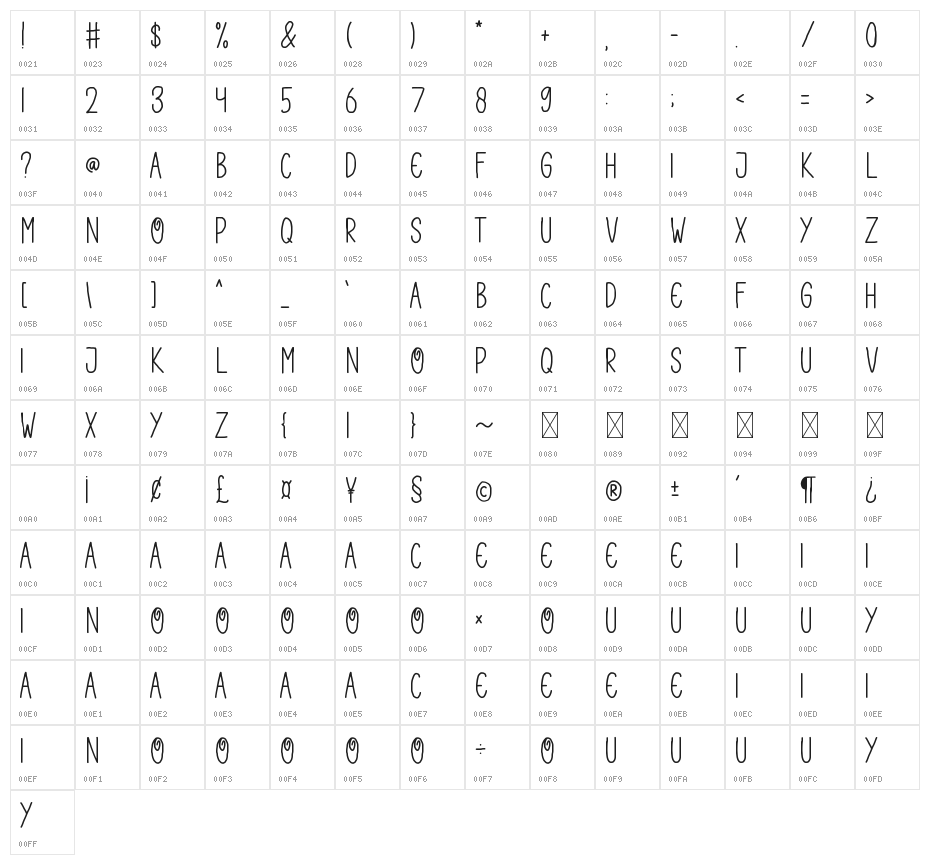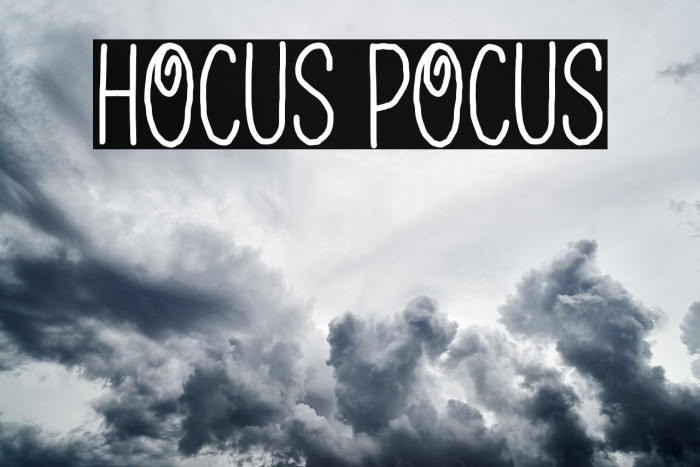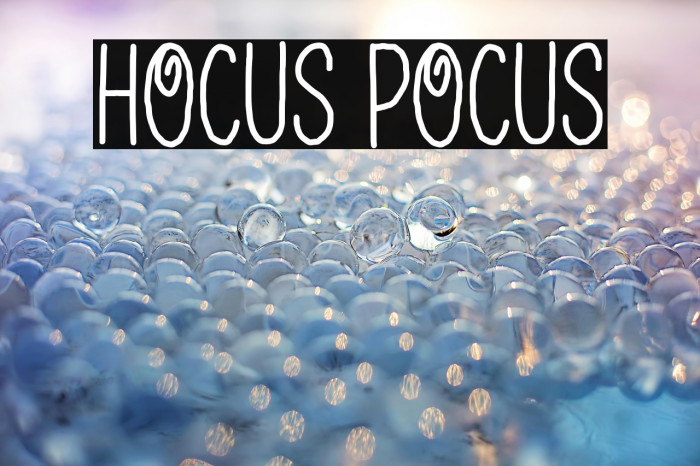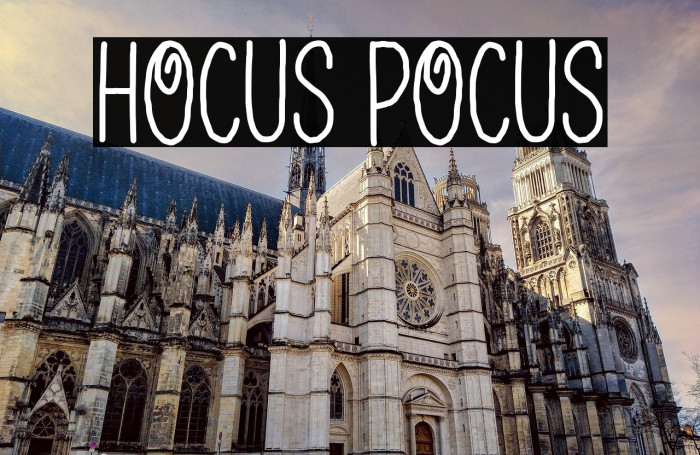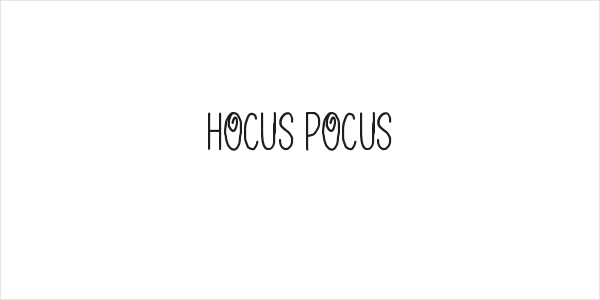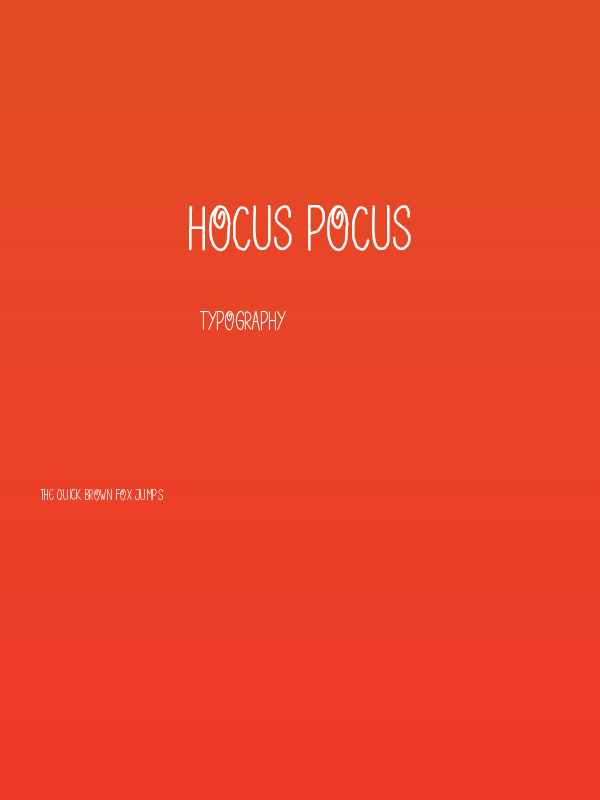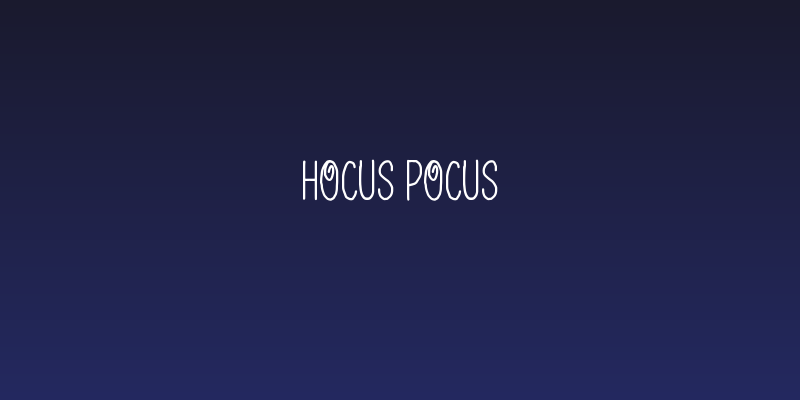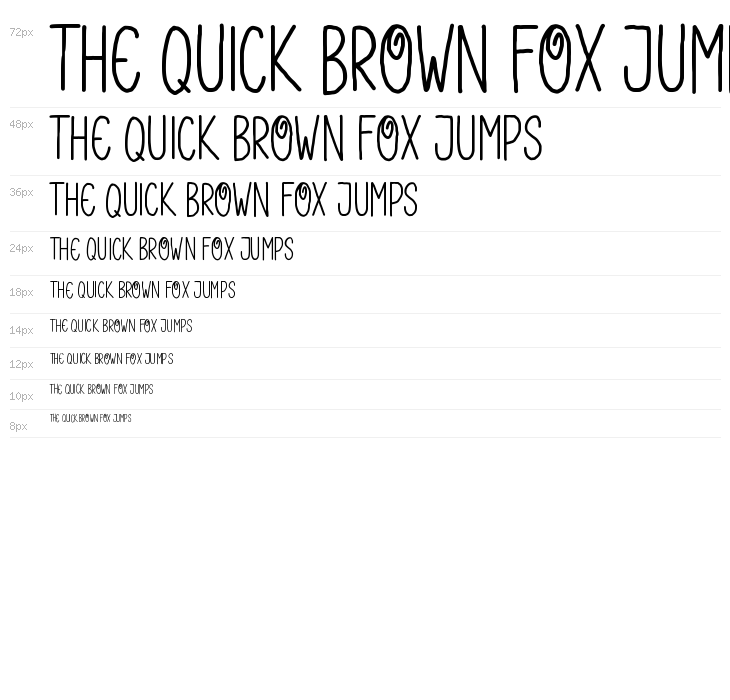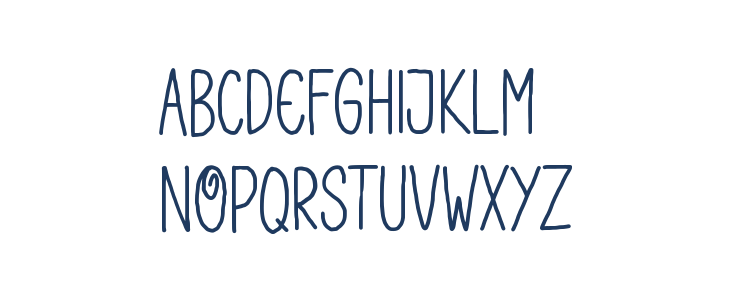
HOCUS POCUS Font
HOCUS POCUS Description
This font features a playful and whimsical handwritten style, characterized by its tall, narrow letters with a slight slant. The strokes are consistent in width, giving it a uniform appearance. The uppercase and lowercase letters maintain a cohesive look, with rounded edges and a casual feel. The numerals and special characters follow the same design principles, ensuring readability and charm. This font exudes a friendly and approachable vibe, making it suitable for creative and informal projects.
| Proposed Projects | Ideal for children's books, greeting cards, playful branding, and informal invitations. |